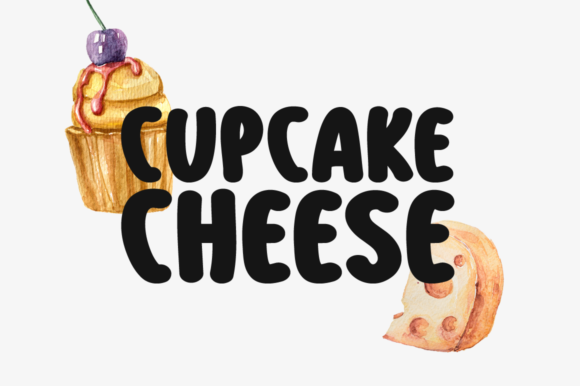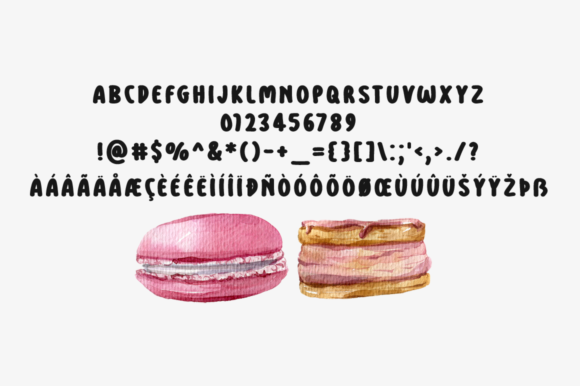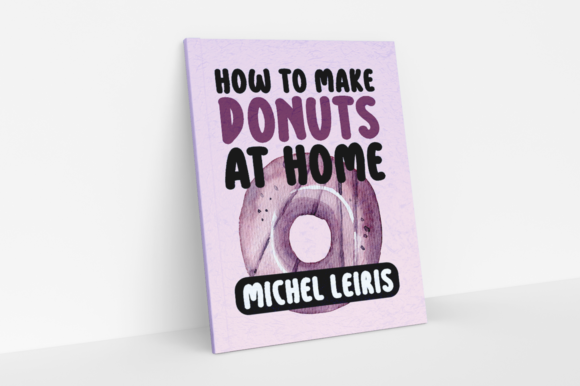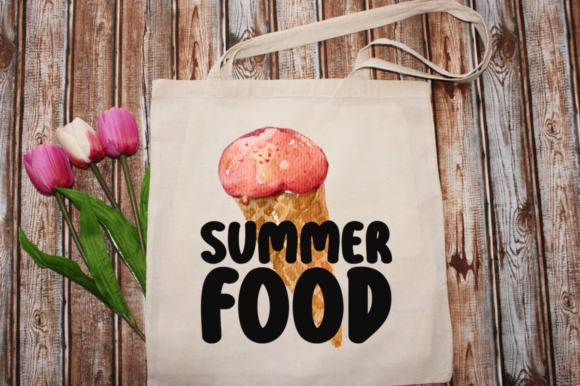
Introducing Food Zone Font: The Ultimate Display Font for Friendly Designs
Are you tired of using the same old fonts for your designs, crafts, and digital projects? Look no further than Food Zone Font, a childish and easy-to-read display font that’s perfect for conveying friendliness and approachability. In this article, we’ll dive into the world of Food Zone Font and explore its features, benefits, and uses, making it a must-have for designers, crafters, and anyone looking to add a touch of warmth to their creations.
The Characteristics of Food Zone Font
Food Zone Font is a unique and charming display font that’s designed to evoke a sense of friendliness and approachability. Its childish and playful style makes it perfect for a wide range of applications, from crafts and digital design to presentations and greeting cards. The font’s clean and simple lines ensure that it’s easy to read, even at smaller sizes, making it a versatile choice for various projects.
Key Features of Food Zone Font
- Childish and playful style: Food Zone Font has a youthful and energetic vibe that’s perfect for designs that require a friendly and approachable tone.
- Easy-to-read: The font’s clear and simple lines ensure that it’s easy to read, even at smaller sizes.
- Display font: Food Zone Font is designed to make a statement, making it perfect for headings, titles, and other display text.
- Versatile: This font can be used for a wide range of applications, from crafts and digital design to presentations and greeting cards.
Benefits of Using Food Zone Font
So, why should you choose Food Zone Font for your next project? Here are just a few benefits of using this amazing display font:
- Adds a touch of friendliness: Food Zone Font is designed to convey a sense of approachability and warmth, making it perfect for designs that require a friendly tone.
- Easy to use: The font’s clean and simple lines ensure that it’s easy to read and use, even for those with limited design experience.
- Versatile: Food Zone Font can be used for a wide range of applications, making it a great addition to any designer’s toolkit.
- Unique: This font’s childish and playful style sets it apart from more traditional display fonts, making it a great choice for designers looking to add some personality to their designs.
Uses for Food Zone Font
So, what can you use Food Zone Font for? The possibilities are endless! Here are just a few ideas to get you started:
- Crafts: Use Food Zone Font to add a personal touch to your craft projects, such as scrapbooking, card making, and DIY gifts.
- Digital design: This font is perfect for digital designers looking to add a friendly and approachable tone to their projects, such as social media graphics, blog posts, and website headers.
- Presentations: Use Food Zone Font to add a touch of personality to your presentations, making them more engaging and memorable.
- Greeting cards: This font is perfect for creating friendly and approachable greeting cards for special occasions, such as birthdays, holidays, and weddings.
In conclusion, Food Zone Font is a unique and versatile display font that’s perfect for designers, crafters, and anyone looking to add a touch of friendliness to their creations. Its childish and playful style, easy-to-read lines, and versatility make it a great addition to any designer’s toolkit. Whether you’re using it for crafts, digital design, presentations, or making greeting cards, Food Zone Font has the potential to become your favorite go-to font, no matter the occasion!